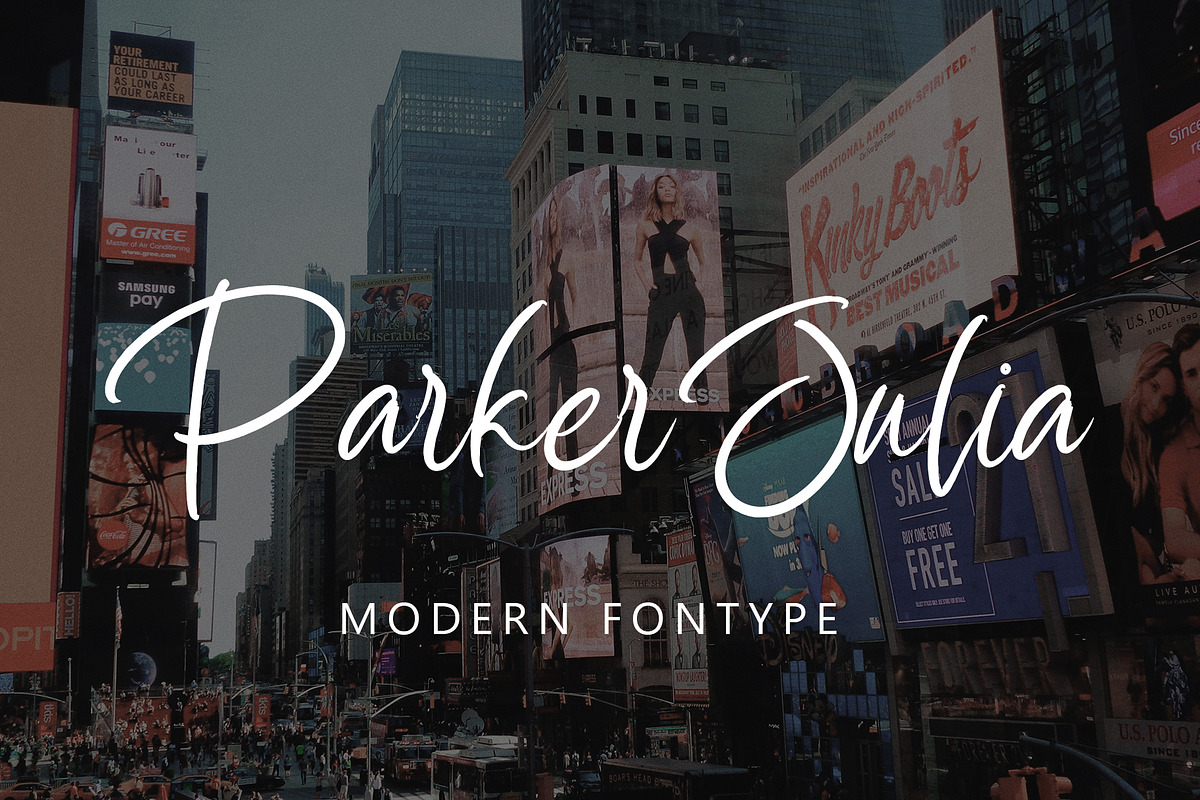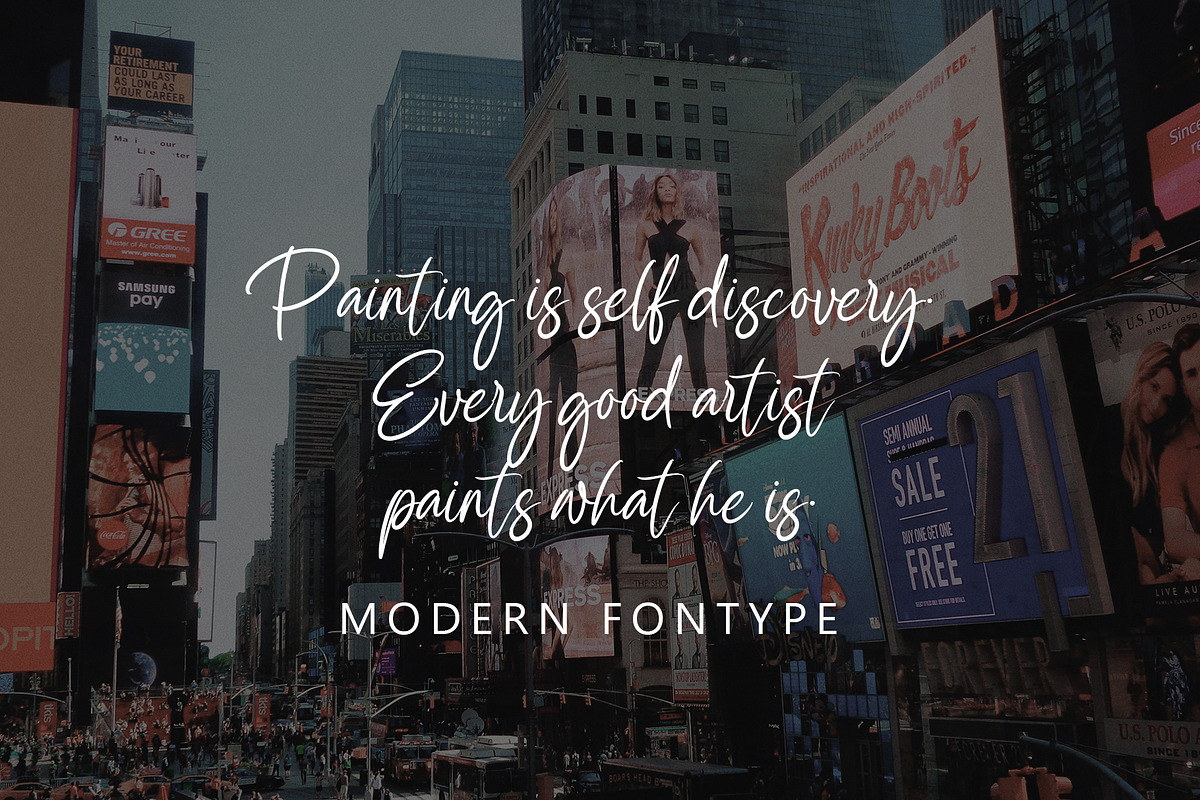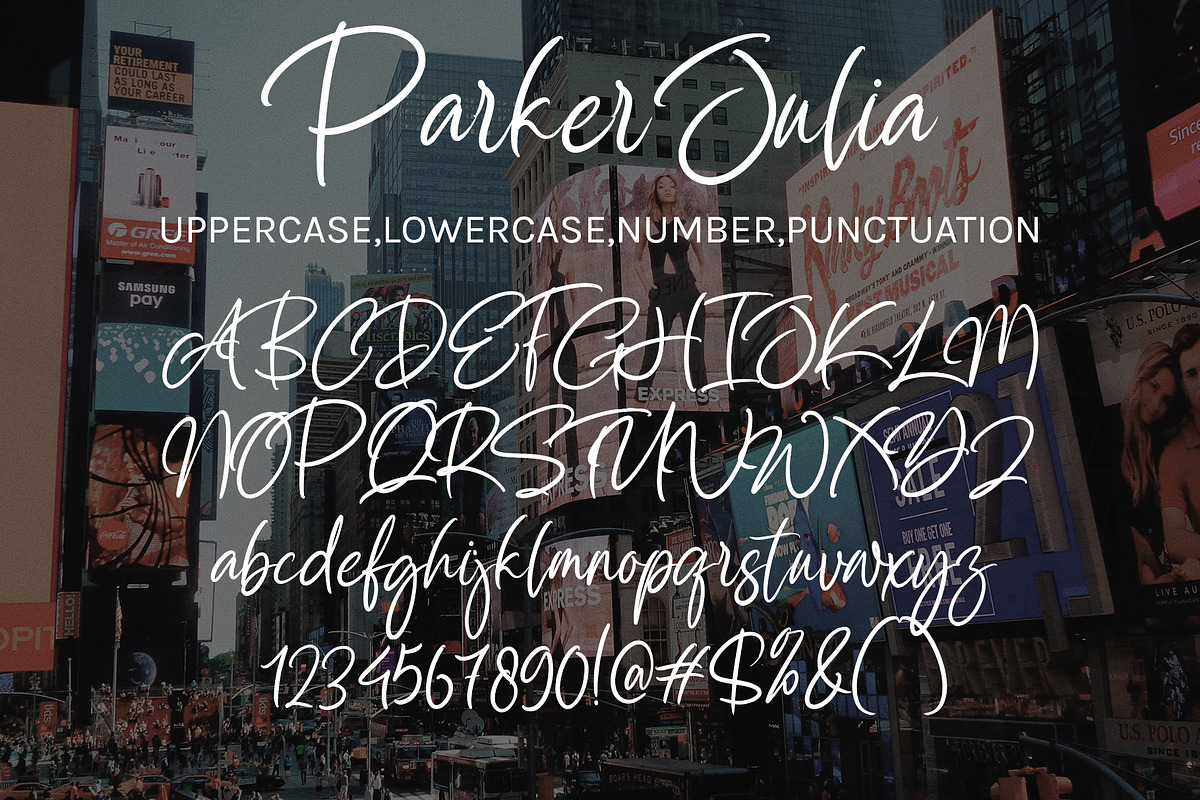
Parker Julia
Parker Julia with new style, this font will perfect for many different project ex: quotes, logo, blog header, poster, banding, letter, invitation, stationery, etc...